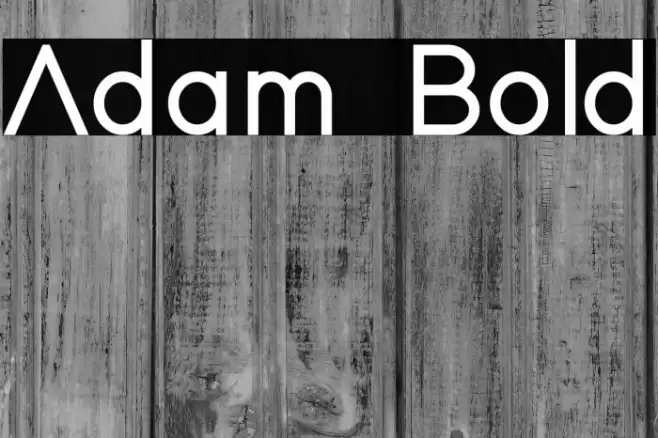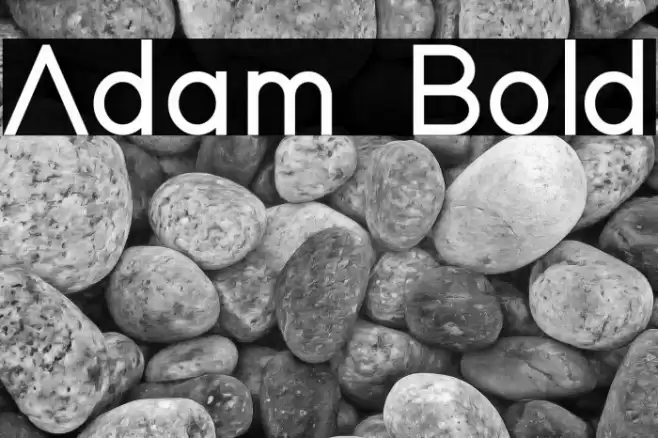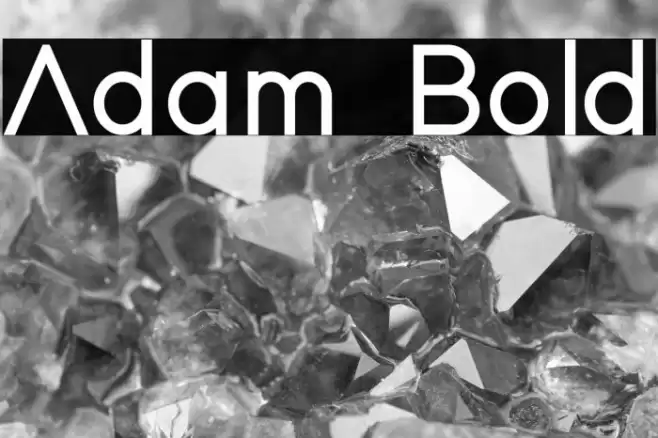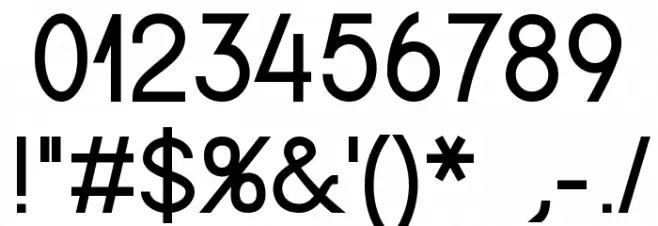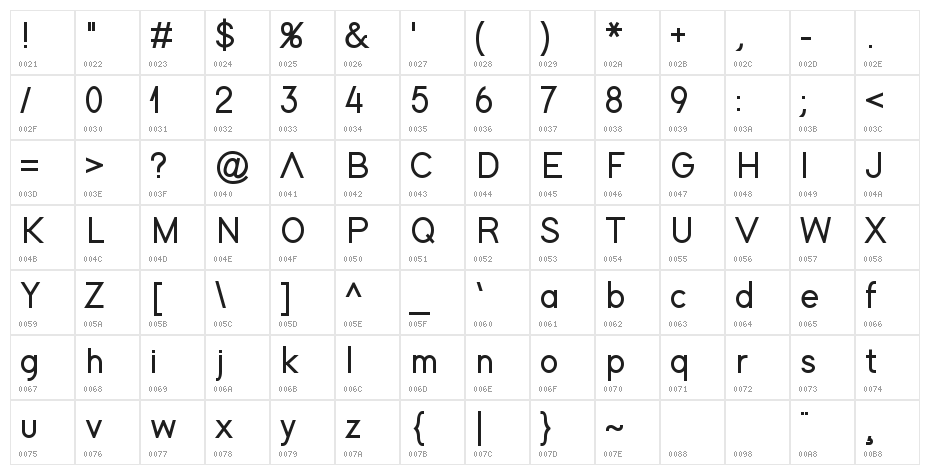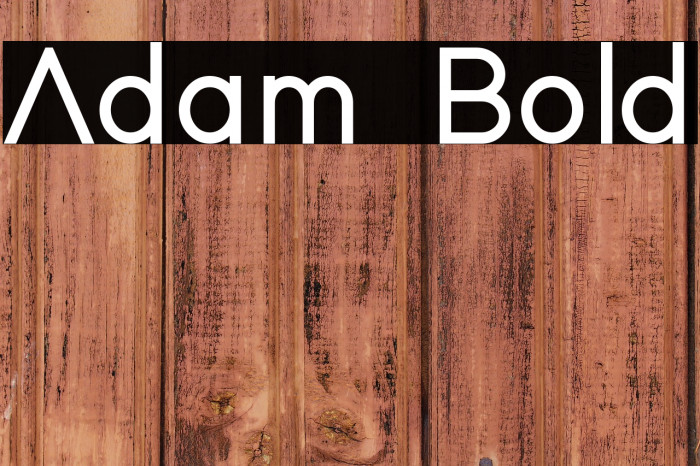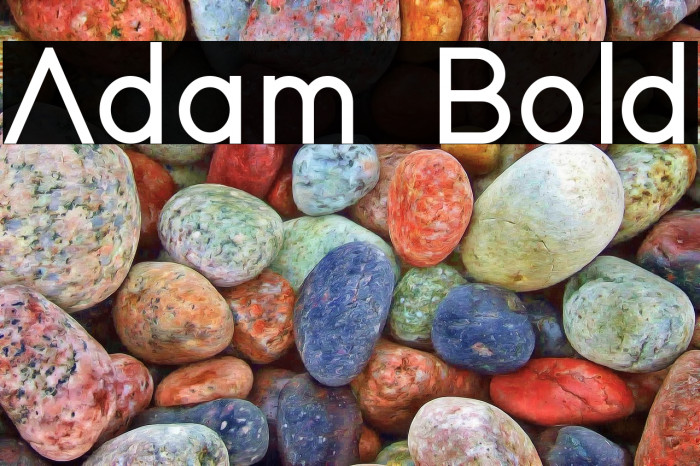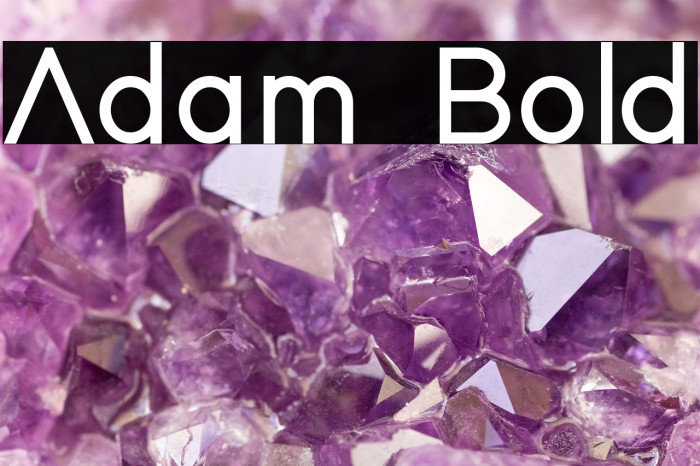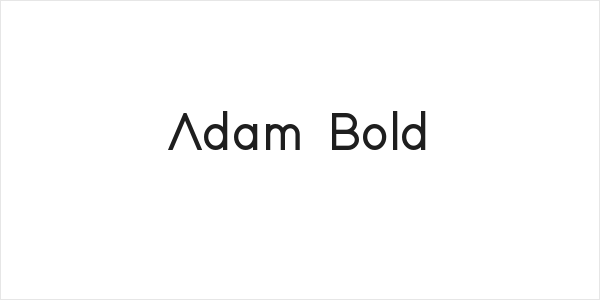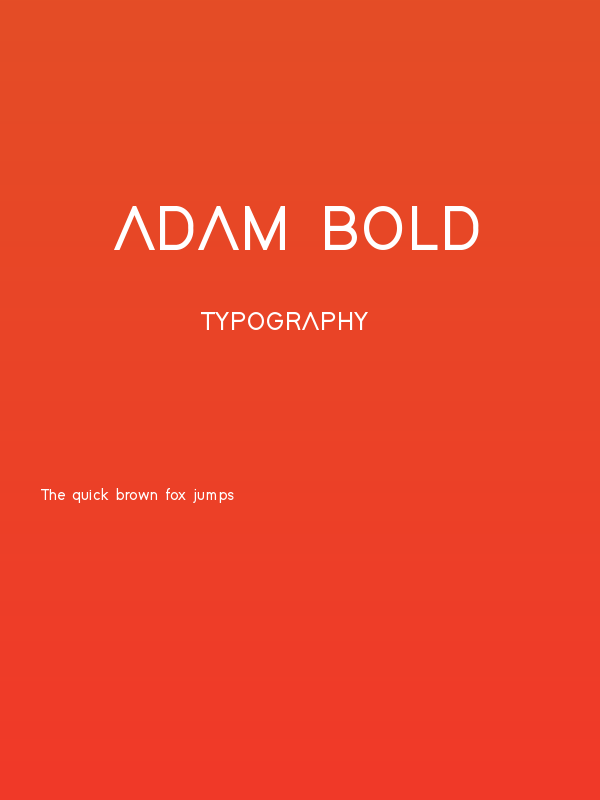
Adam Bold Font
Adam Bold Description
This font features a clean and modern sans-serif style with uniform stroke widths, giving it a balanced and professional appearance. The characters are well-proportioned, with a geometric influence that enhances readability. The uppercase letters are bold and assertive, while the lowercase letters maintain a consistent flow, making it versatile for various design applications. The numerals are clear and distinct, ensuring legibility in numerical data. Special characters are included, offering a comprehensive set for diverse uses. This font's simplicity and clarity make it suitable for both digital and print media.
A modern, bold sans-serif font with geometric influences and excellent readability from Uncategorized fonts.